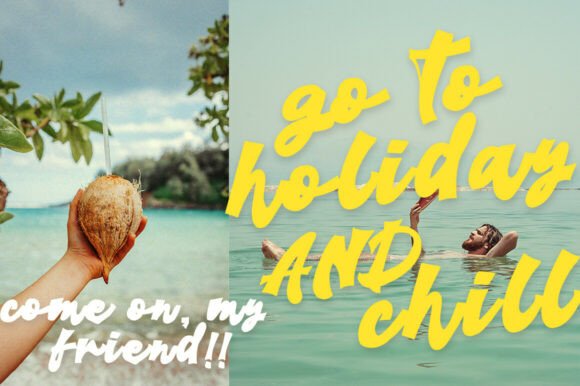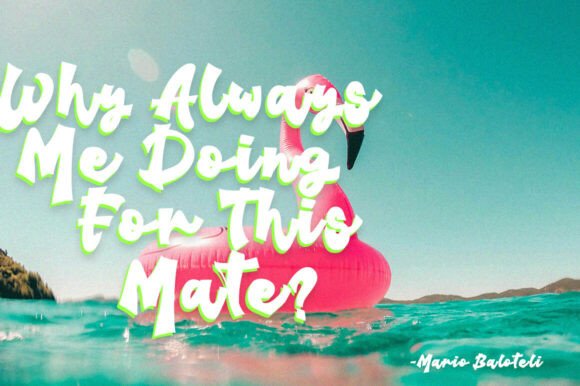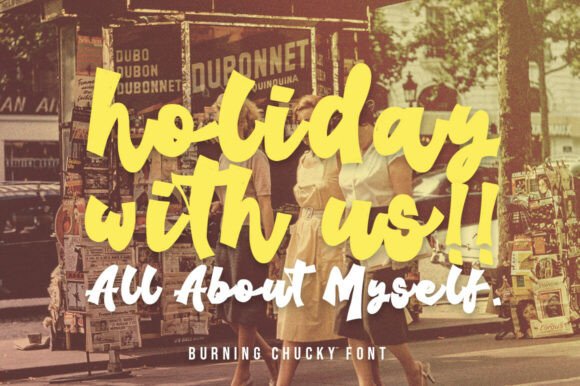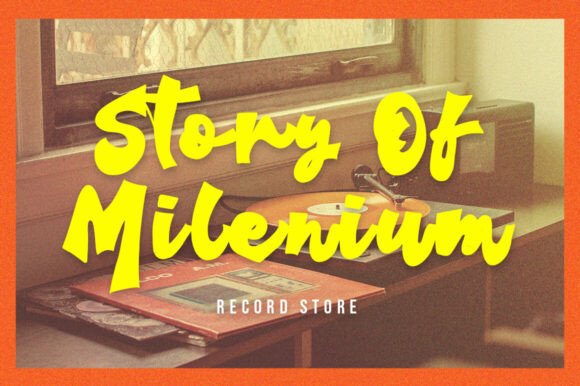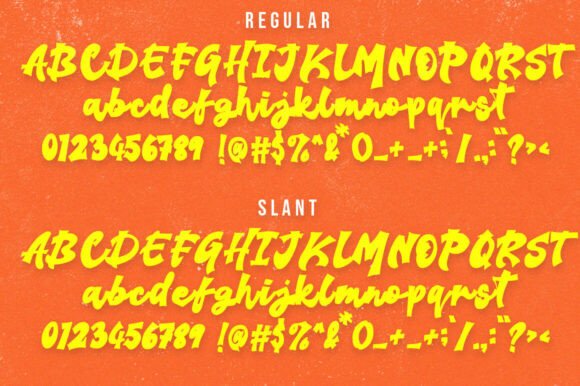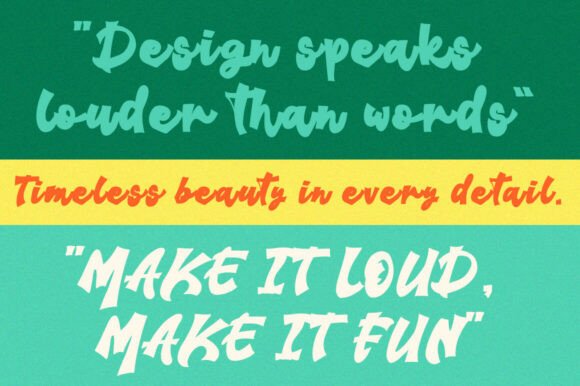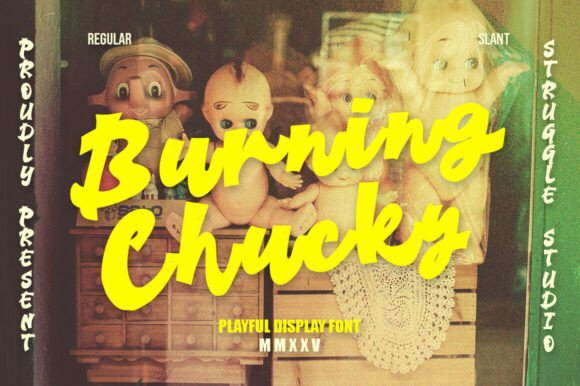
The Ultimate Guide to Burning Chucky Font: Adding a Fearless and Cheerful Touch to Your Designs
I’ll never forget the time I was working on a project for a client who wanted a bold, eye-catching font to capture the playful personality of their brand. I scoured the internet for hours, trying out font after font, but nothing seemed quite right. That was until I stumbled upon Burning Chucks – a bold and energetic script display font that instantly brought my design to life. In this article, I’ll share my experience with Burning Chucks, its features, and how to make the most of it in your designs.
What is Burning Chucky Font?
Burning Chucks is a bold and energetic script display font with a playful personality. Designed to capture attention, this typeface features thick, dynamic strokes that bring a lively, handcrafted feel to any design. Each letter carries a sense of motion and fun, making it perfect for standout visuals. This font comes in two versatile styles: Regular – A solid and highly legible option for strong, impactful designs, and Slant – A more expressive, italic-inspired style that adds movement and attitude.
- ✨ Attention-grabbing: Burning Chucks is designed to capture attention, and it does so with its bold and energetic strokes.
- ✅ Versatile: The font comes in two styles – Regular and Slant, making it suitable for a wide range of design projects.
- 💥 Fun and playful: The font’s playful personality makes it perfect for designs that require a cheerful touch.
- 🎨 Handcrafted feel: The dynamic strokes give the font a lively, handcrafted feel that adds a personal touch to designs.
While Burning Chucks is an excellent font, there are a few things to keep in mind:
- 🤔 Legibility at small sizes: Due to its bold and dynamic strokes, Burning Chucks may not be the best choice for body text or small font sizes.
- ⚠️ Overuse: As with any bold font, it’s essential to use Burning Chucks judiciously to avoid overwhelming the design.
Burning Chucks comes with a range of OpenType features and glyphs that can enhance your designs. Here are a few features to explore:
- Stylistic Alternates: Burning Chucks offers stylistic alternates that can add a touch of personality to your designs.
- Swashes: The font comes with swashes that can add a decorative touch to your designs.
- Ligatures: Burning Chucks offers ligatures that can help create a more cohesive look in your designs.
The story behind Burning Chucks is one of creativity and experimentation. The font’s designer was inspired by the world of street art and graffiti, where bold, dynamic letters are used to capture attention and convey energy. The designer wanted to create a font that would bring that same energy and playfulness to designs.
| Font Name | Burning Chucky Font |
| Author | Struggle Studio |
Q: What is Burning Chucks font?
A: Burning Chucks is a bold and energetic script display font with a playful personality.
Q: Is Burning Chucks a versatile font?
A: Yes, Burning Chucks comes in two styles – Regular and Slant, making it suitable for a wide range of design projects.